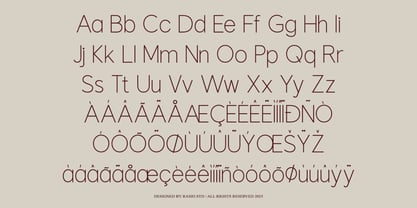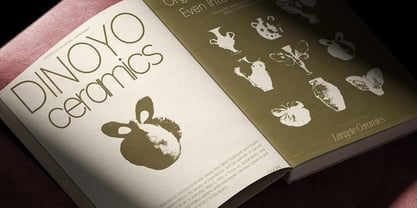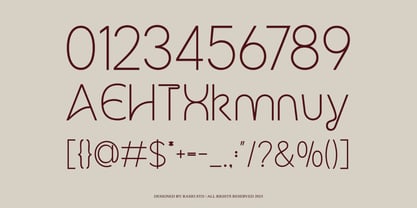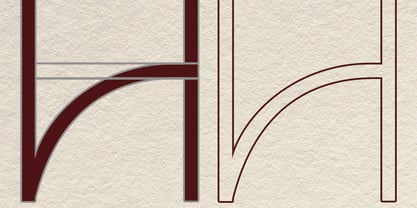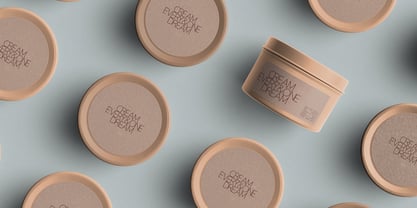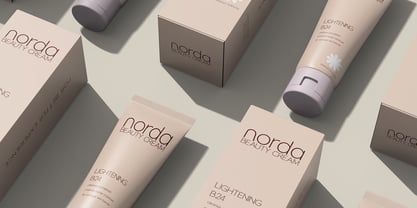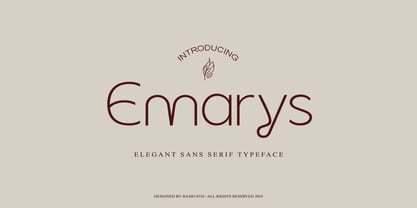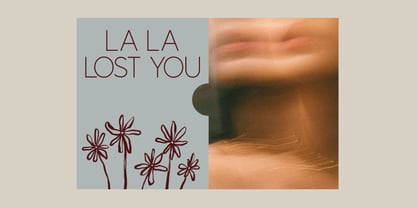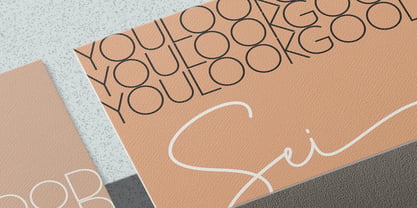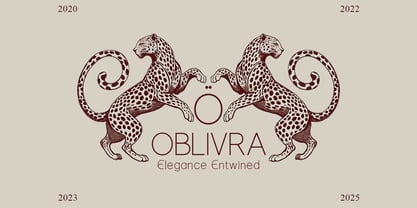
Emarys
by Rasio Studio
The Emarys Font Family was designed by Fajar Indra and published by Rasio Studio. Emarys contains 1 styles. More about this family
Emarys is an elegant minimal sans serif typeface designed to deliver softness, clarity, and refined modern beauty. With its slim stroke construction, rounded terminals, and subtle organic curves, Emarys balances contemporary simplicity with graceful character details. Emarys is highly relevant for beauty brands, skincare packaging, fashion labels, lifestyle blogs, boutique businesses, wellness brands, social media templates, and modern editorial layouts. Its soft minimal structure makes it perfect for logo design, branding systems, magazine headlines, product packaging, invitation design.
Designers: Fajar Indra
Current Foundry: Rasio Studio